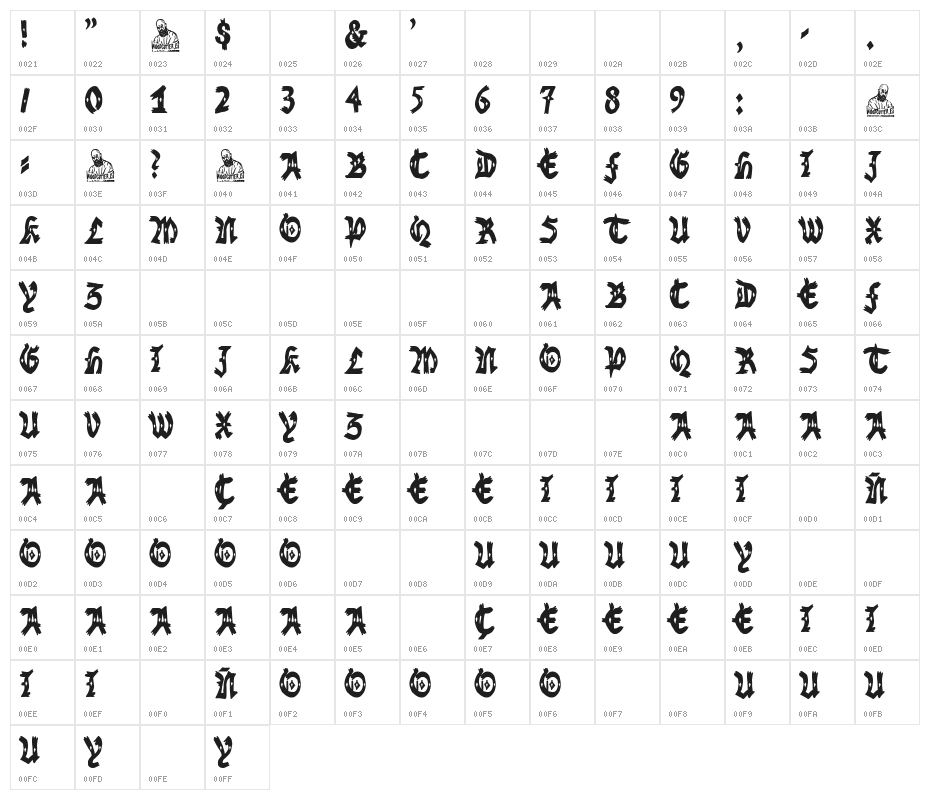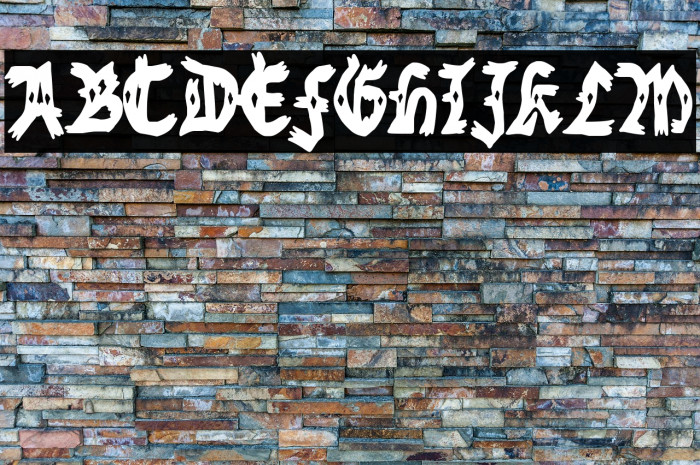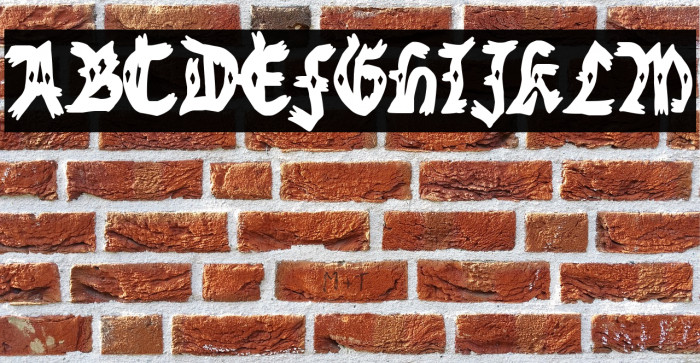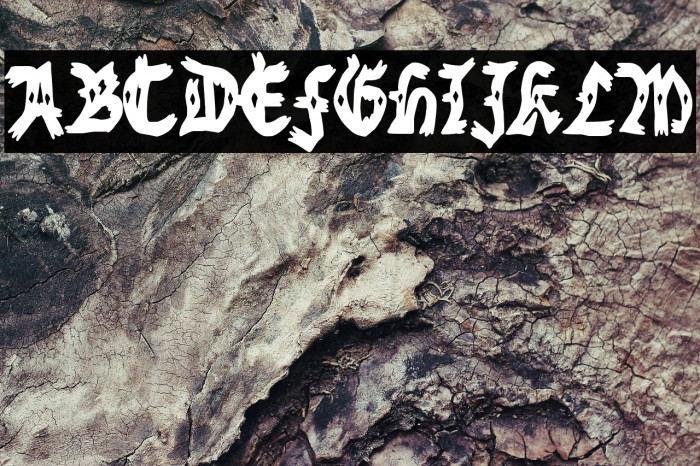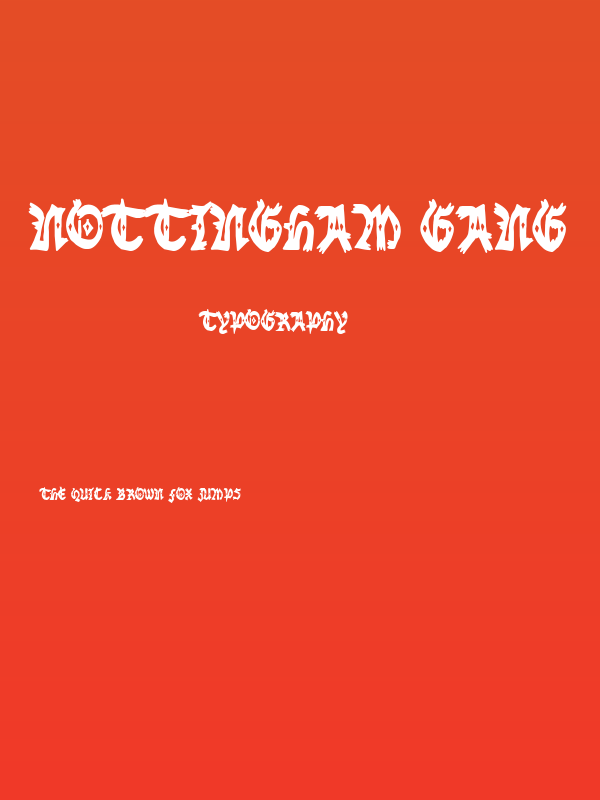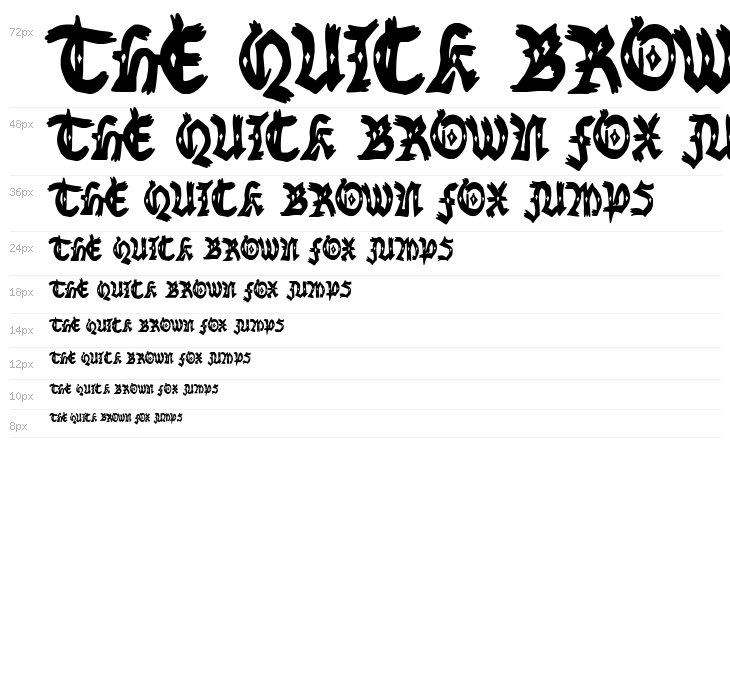
Nottingham Gang Font
Nottingham Gang Description
A highly decorative, jagged font with sharp, irregular edges and a distressed, hand-drawn appearance. The characters are bold and dramatic, evoking a sense of chaos or rebellion, with uneven stroke thickness and unique, eye-catching details.
| Overall Style | Decorative, Grunge, Gothic |
| Proposed Projects | Horror posters, Halloween invitations, band logos, video game titles, themed event flyers. |